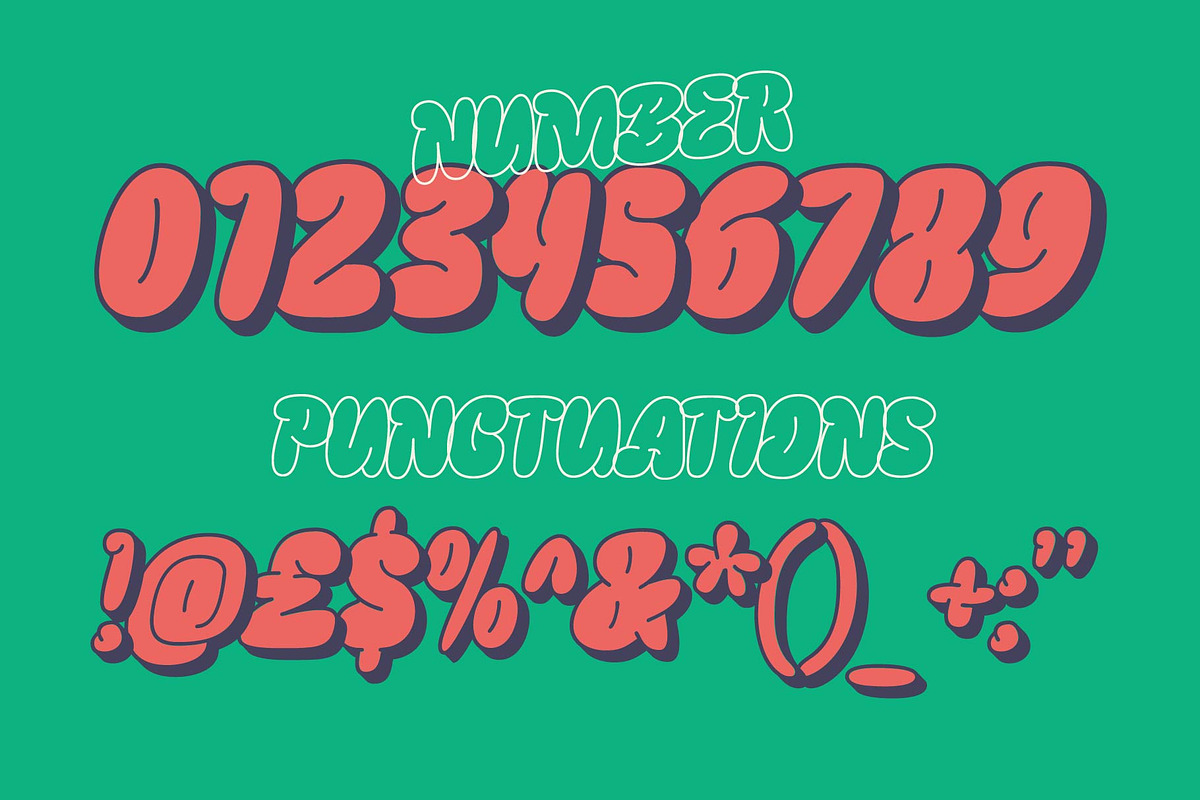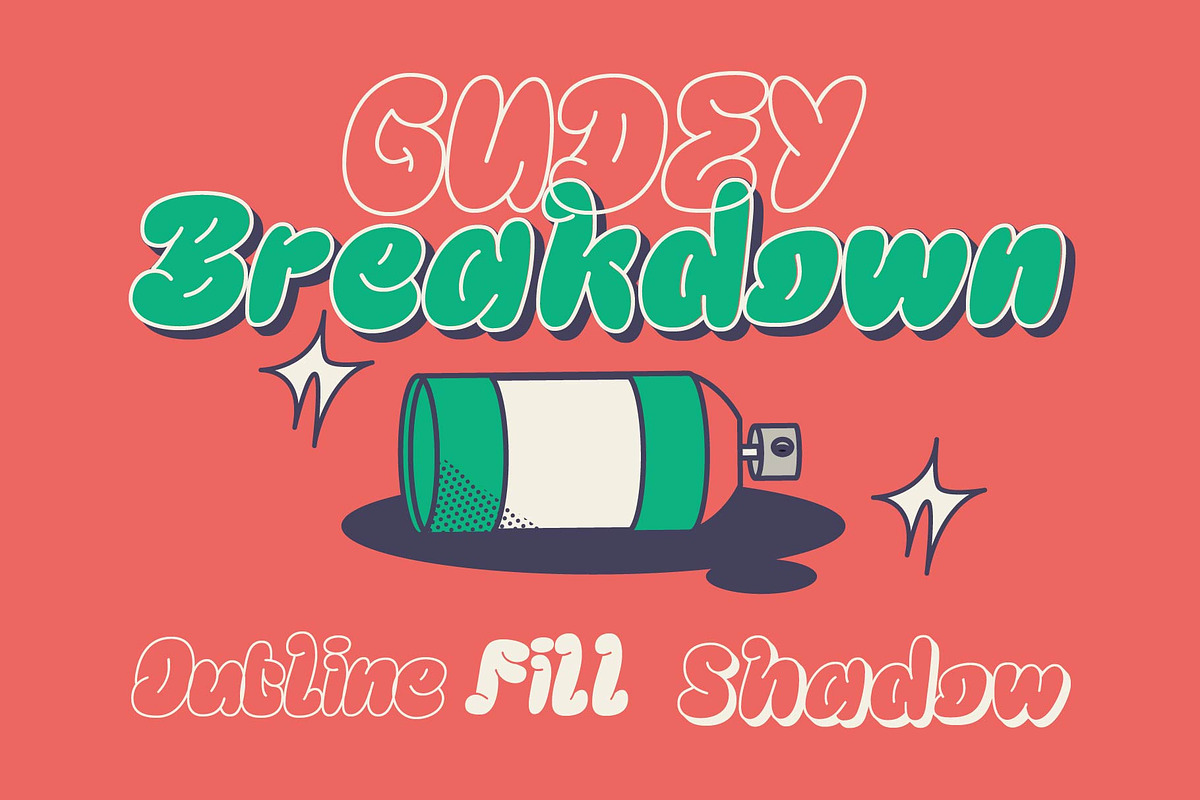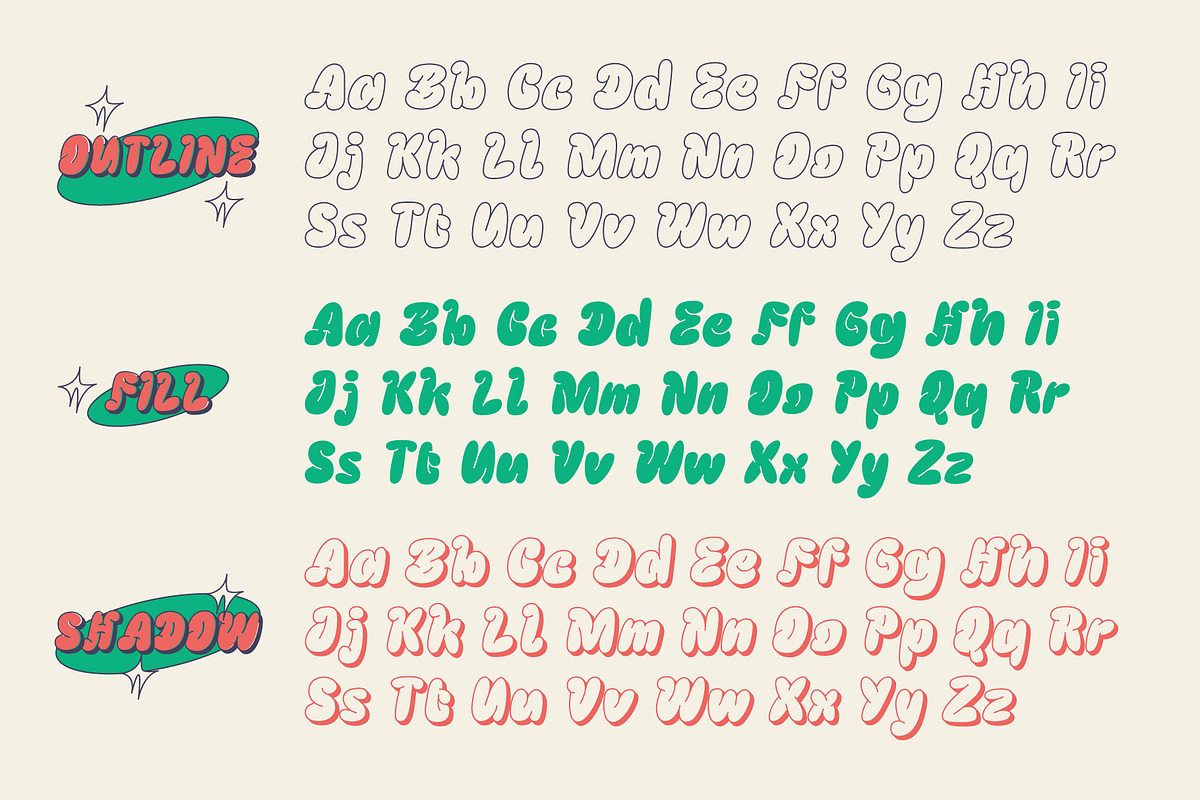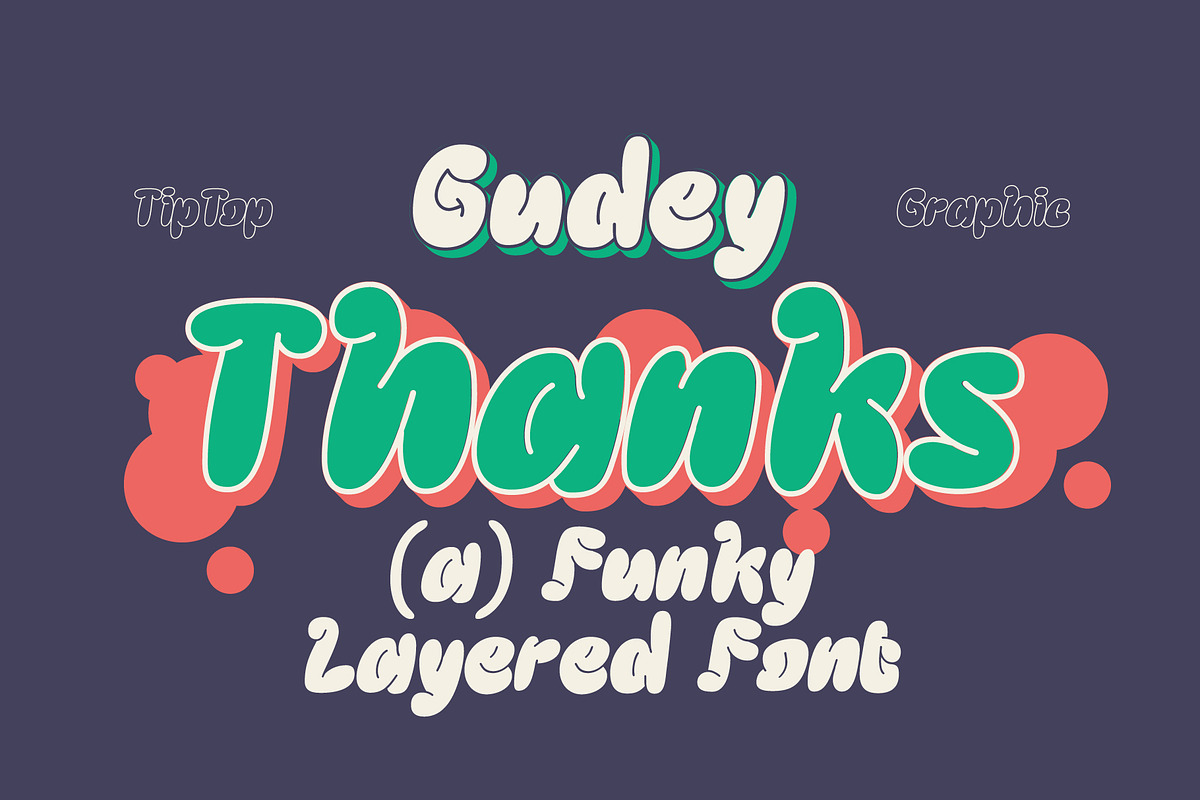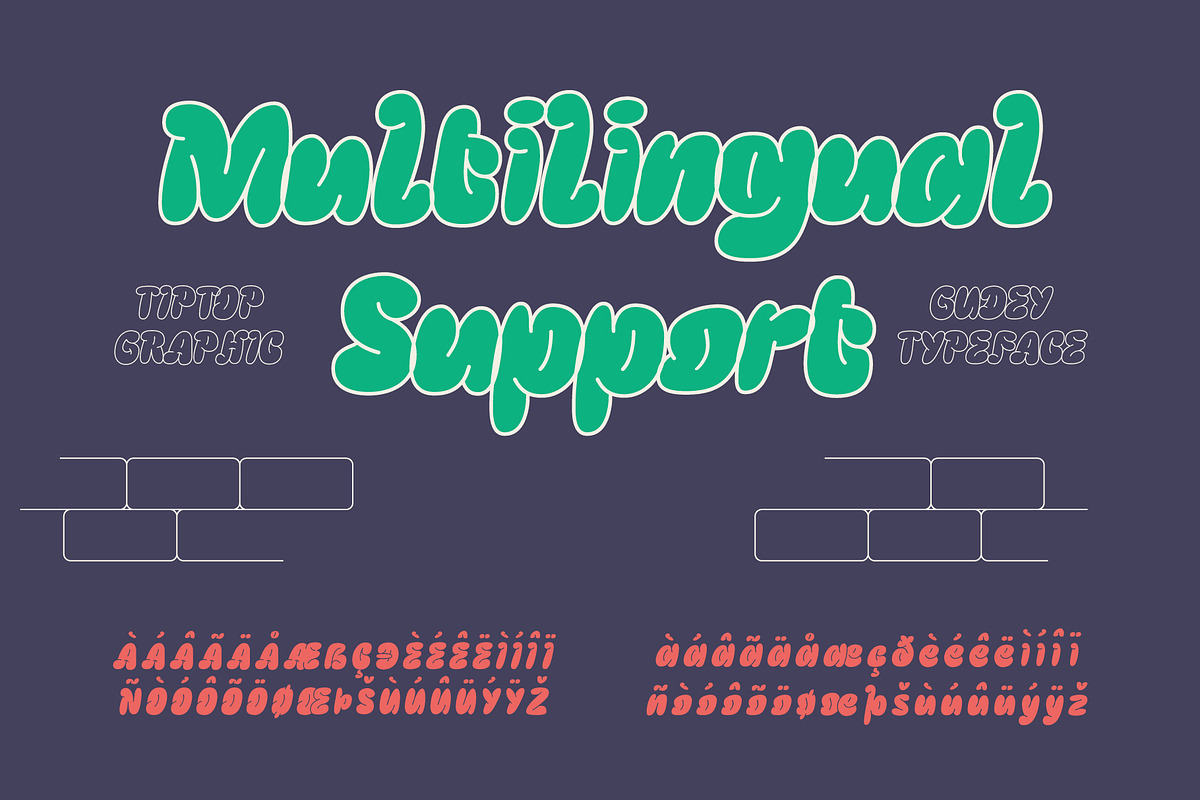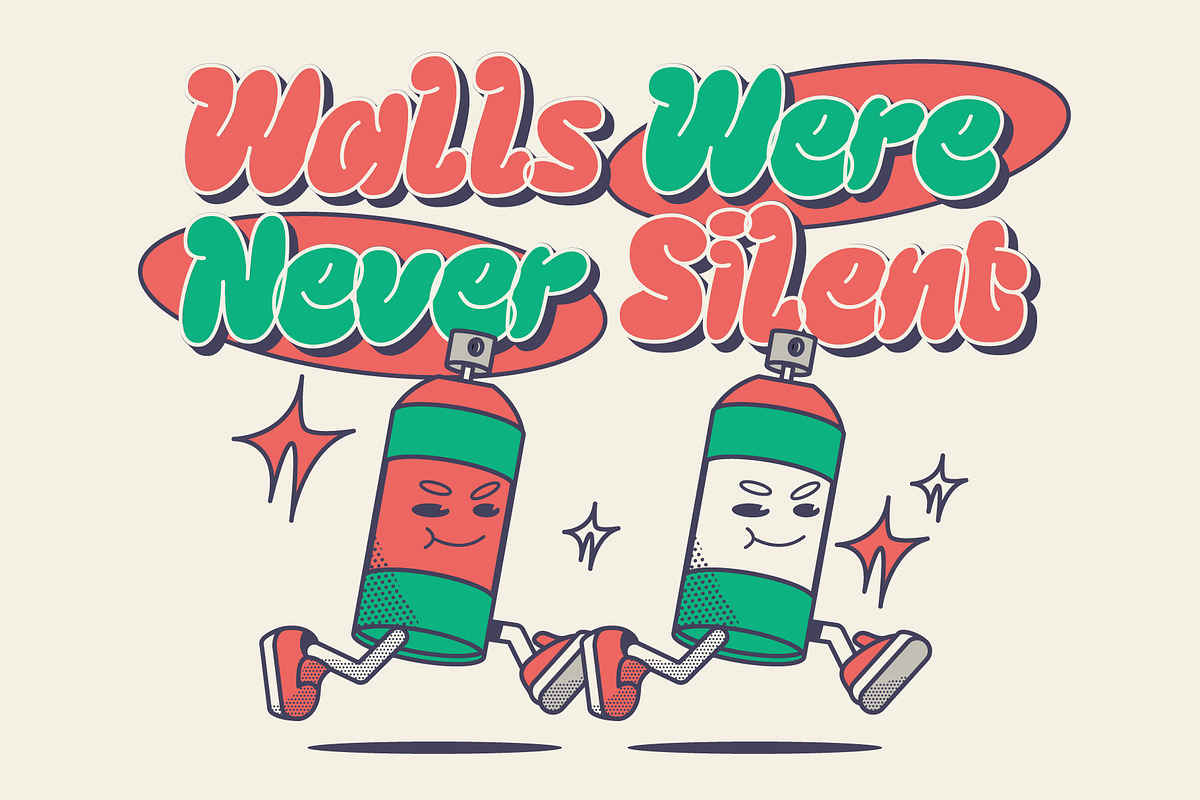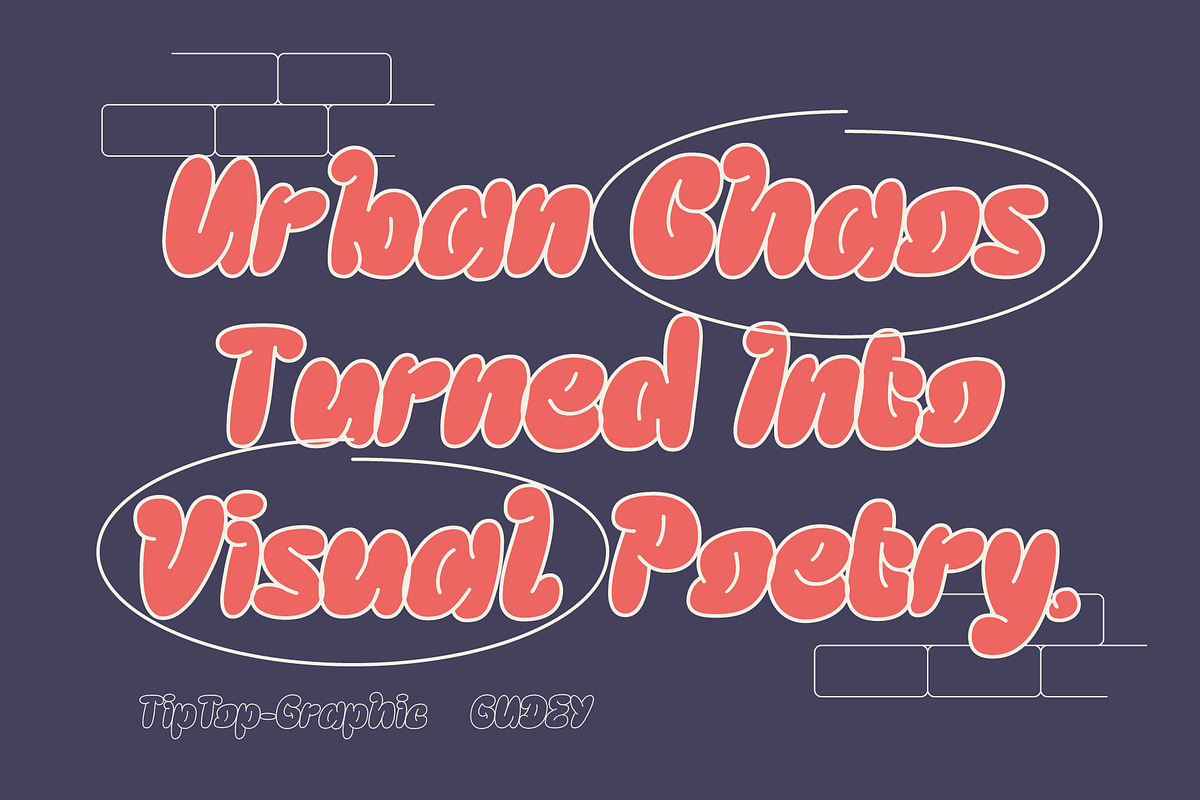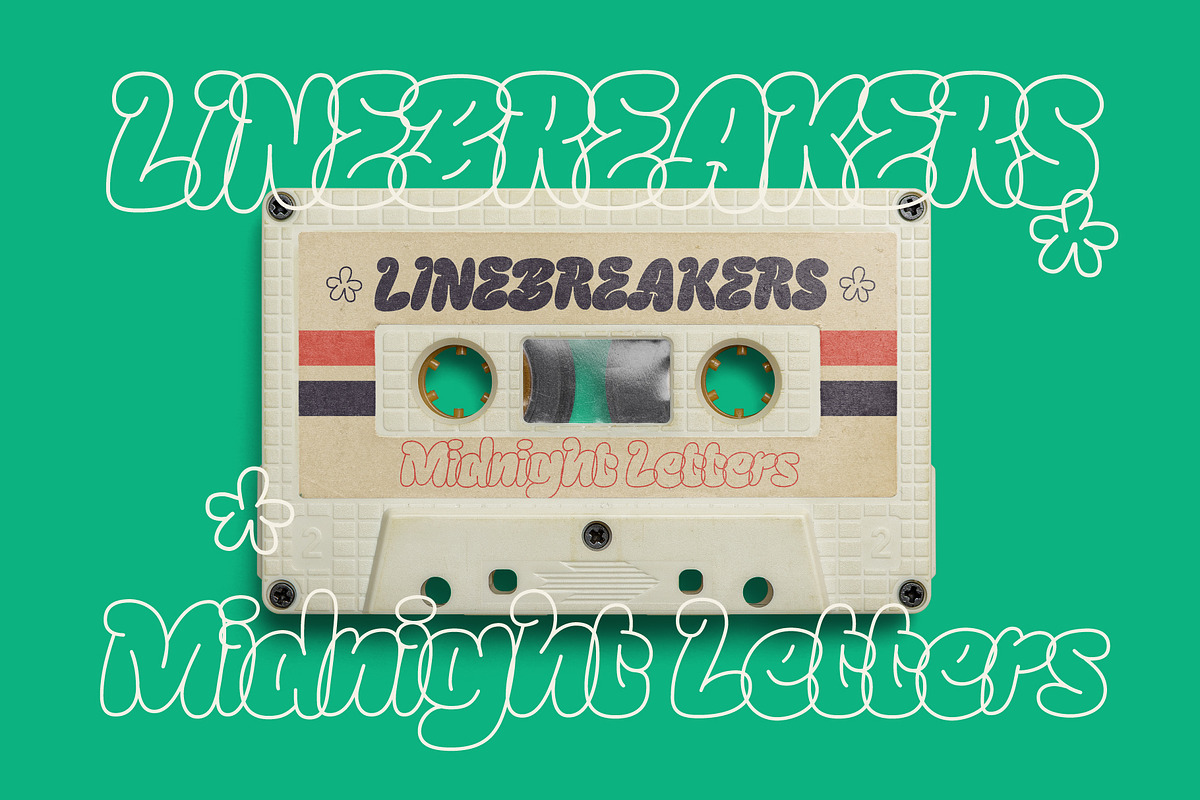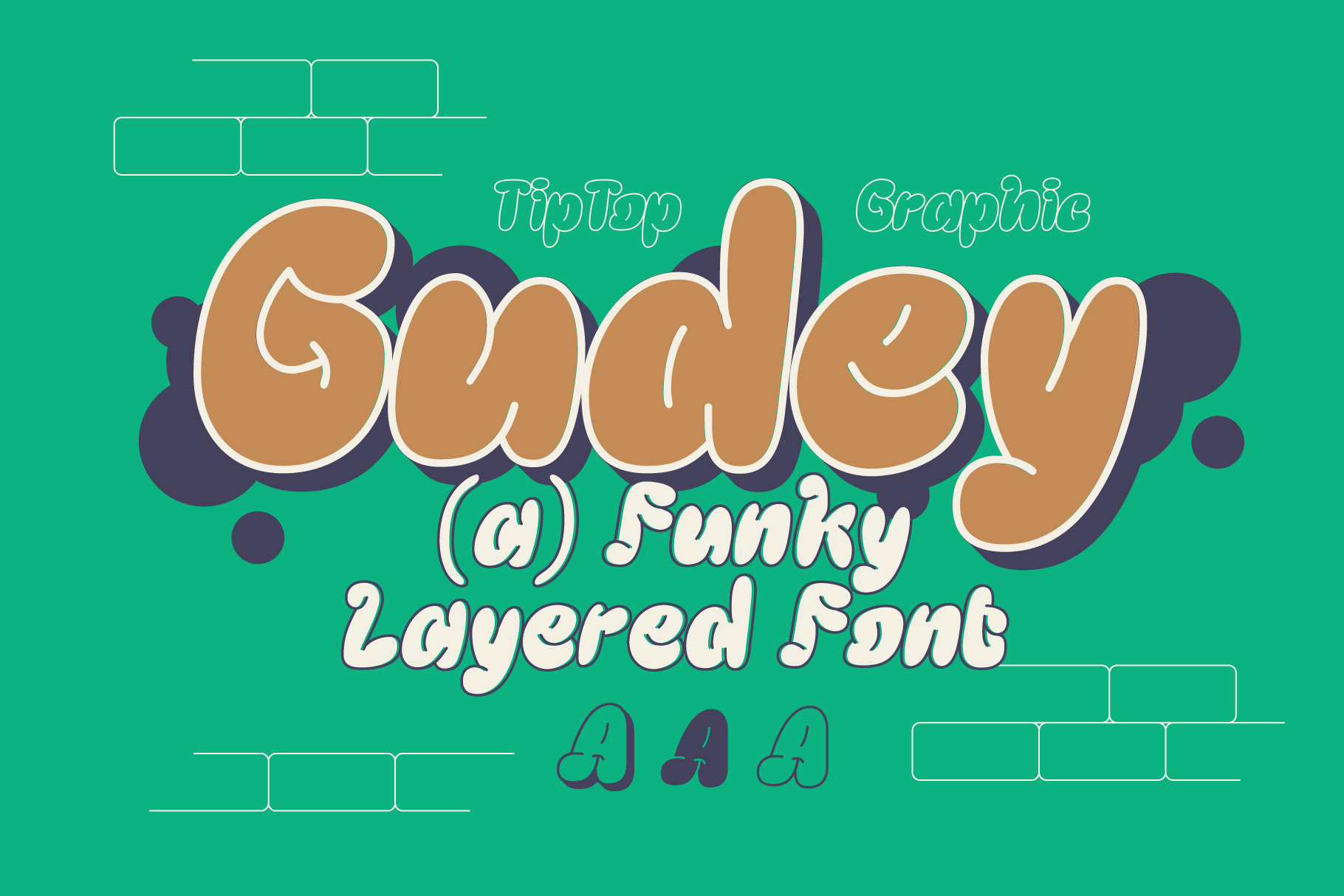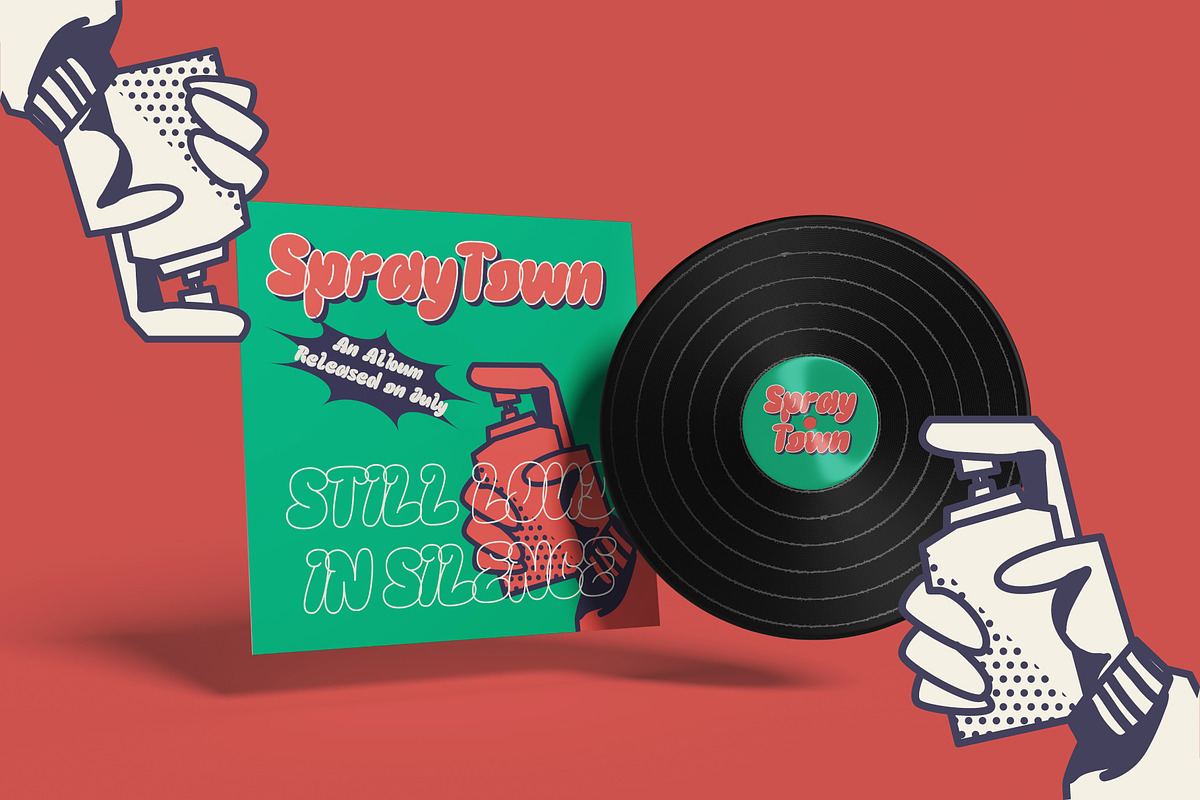
Gudey – Funky Layered Font
Gudey is a funky layered font bursting with playful personality and urban flair, perfect for designs that demand attention. With its bubbly graffiti-inspired style, Gudey blends bold, rounded letterforms and vibrant layering to create a fun, eye-catching look ideal for streetwear branding, youth-focused projects, album covers, or quirky headlines. Whether used solo or stacked for maximum impact, this font brings a joyful, rebellious energy to any creative work.
Gudey – Funky Layered Font features:
- Punctuation & Numbers
- Outline, Fill, Shadows